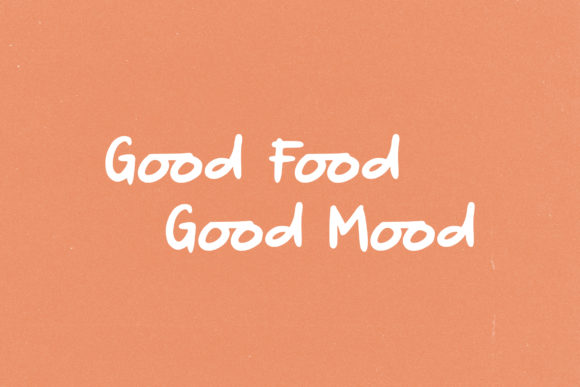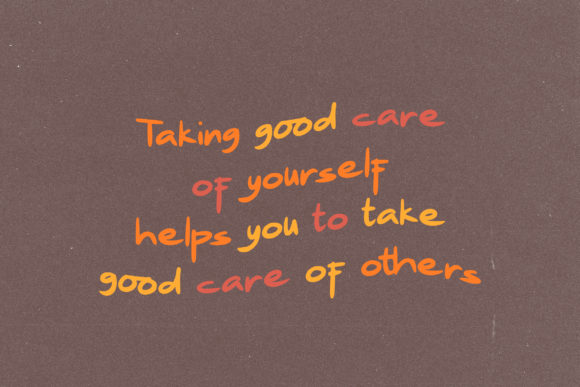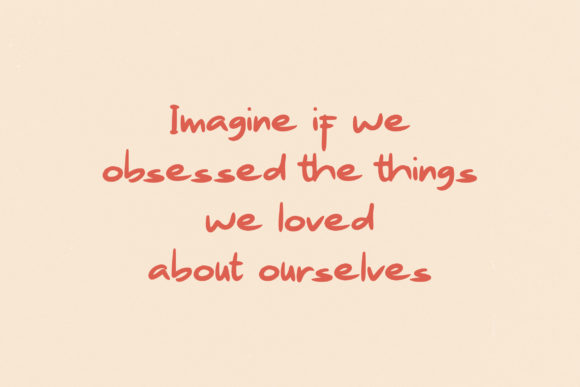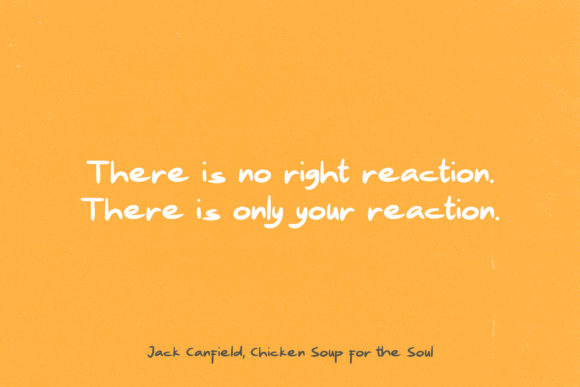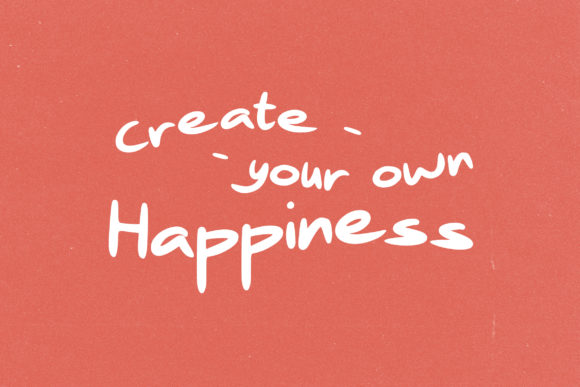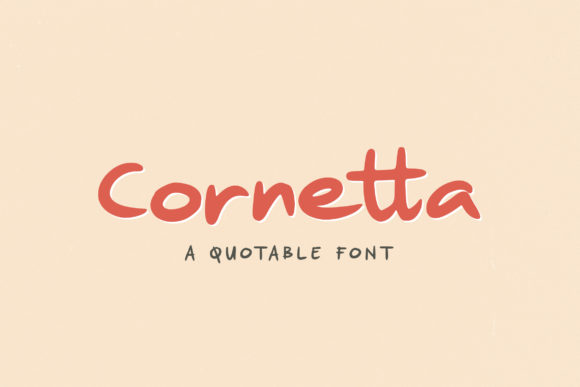
Introducing Cornetta Font: The Ultimate Display Font for Joyful Designs
Are you tired of using the same old fonts in your designs? Do you want to add a touch of whimsy and playfulness to your creative projects? Look no further than Cornetta Font, a cute and quirky display font that’s sure to bring a smile to your face. In this article, we’ll dive into the world of Cornetta Font and explore how it can elevate your designs to the next level.
What is Cornetta Font?
Cornetta Font is a beautiful display font that’s perfect for adding a joyful touch to your designs. With its unique and quirky style, Cornetta Font is sure to make your creative projects stand out from the crowd. Whether you’re a designer, crafter, or DIY enthusiast, Cornetta Font is a must-have addition to your font collection.
Characteristics of Cornetta Font
So, what makes Cornetta Font so special? Here are just a few of its key characteristics:
- Cute and Quirky: Cornetta Font has a playful, whimsical style that’s sure to add a touch of personality to your designs.
- Display Font: Cornetta Font is a display font, making it perfect for headlines, titles, and other large-format text.
- Unique Style: Cornetta Font has a one-of-a-kind style that’s sure to make your designs stand out from the crowd.
How to Use Cornetta Font in Your Designs
Cornetta Font is incredibly versatile, making it perfect for a wide range of design projects. Here are just a few ideas to get you started:
- Signs and Posters: Use Cornetta Font to create eye-catching signs and posters that are sure to grab attention.
- Social Media Graphics: Add a touch of whimsy to your social media graphics with Cornetta Font.
- Crafting Projects: Use Cornetta Font to add a personal touch to your crafting projects, such as scrapbooking, card-making, and DIY decor.
- Branding and Packaging: Use Cornetta Font to create unique and memorable branding and packaging for your business or product.
Benefits of Using Cornetta Font
So, why should you choose Cornetta Font for your design projects? Here are just a few benefits:
- Adds Personality: Cornetta Font adds a touch of personality and whimsy to your designs, making them more engaging and memorable.
- Versatile: Cornetta Font is incredibly versatile, making it perfect for a wide range of design projects.
Tips for Getting the Most Out of Cornetta Font
Here are a few tips for getting the most out of Cornetta Font:
- Experiment with Different Sizes: Cornetta Font looks great in a variety of sizes, so don’t be afraid to experiment and find the perfect size for your design.
- Pair with Other Fonts: Cornetta Font pairs well with a variety of other fonts, so try pairing it with different fonts to create a unique look.
- Use in Combination with Images: Cornetta Font looks great in combination with images, so try using it to add text to your photos and illustrations.
| Font Name | Cornetta Font |
| Author | Typehand Studio |
In conclusion, Cornetta Font is a beautiful and versatile display font that’s perfect for adding a joyful touch to your designs. With its unique and quirky style, Cornetta Font is sure to make your creative projects stand out from the crowd. Whether you’re a designer, crafter, or DIY enthusiast, Cornetta Font is a must-have addition to your font collection. So why wait? Download Cornetta Font today and start adding a touch of whimsy to your designs!